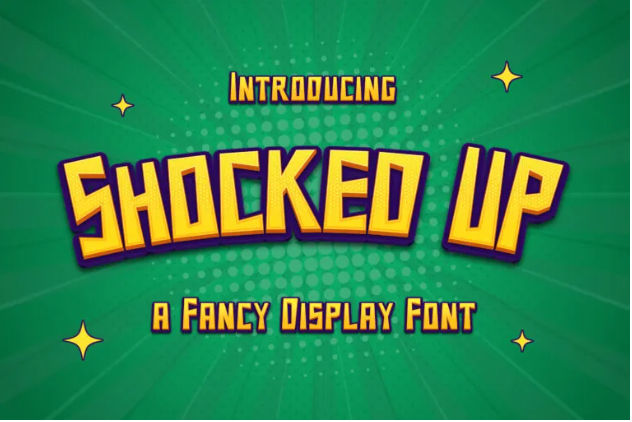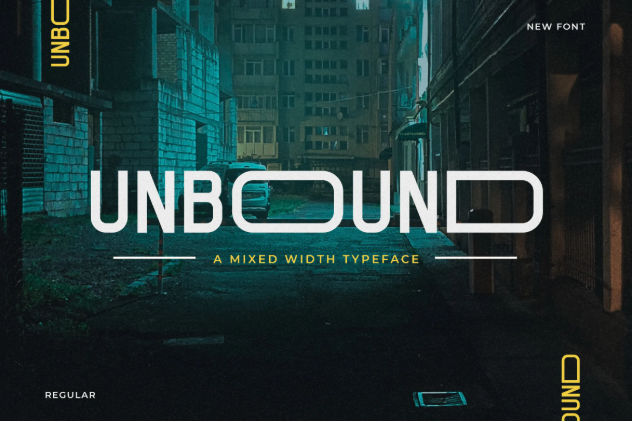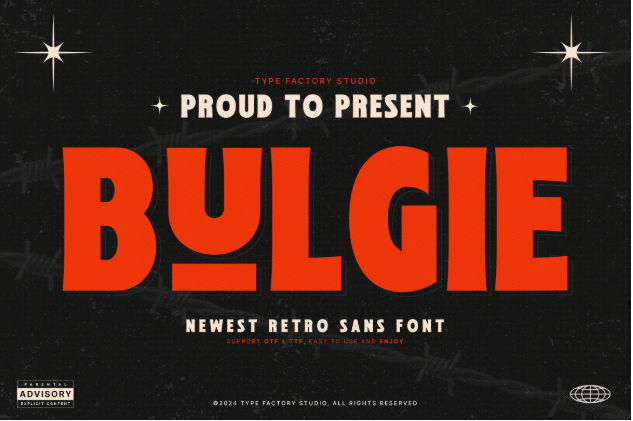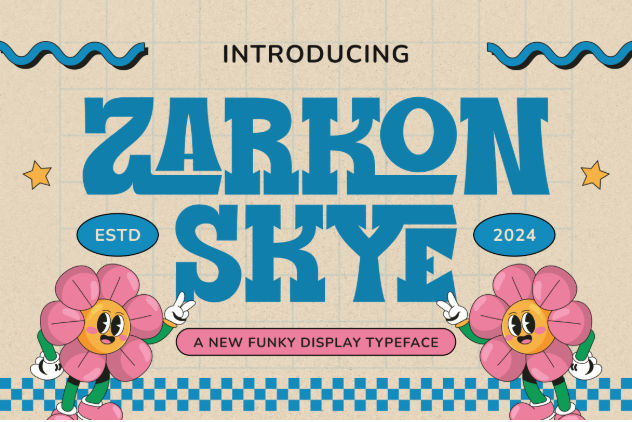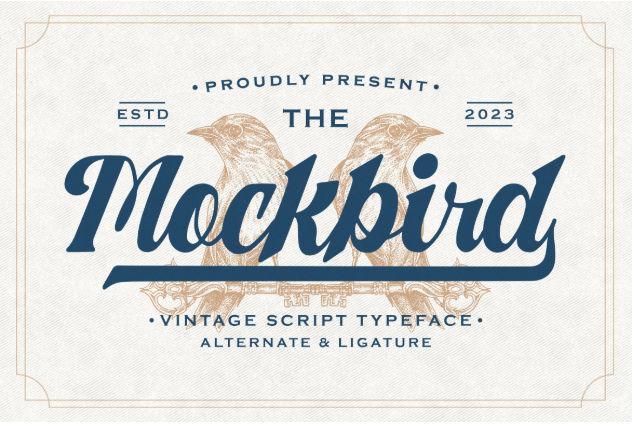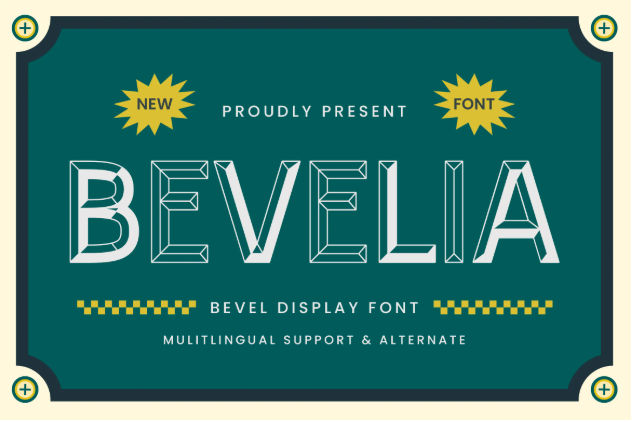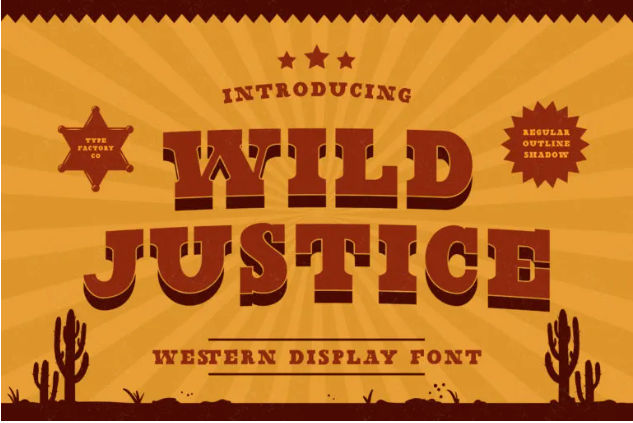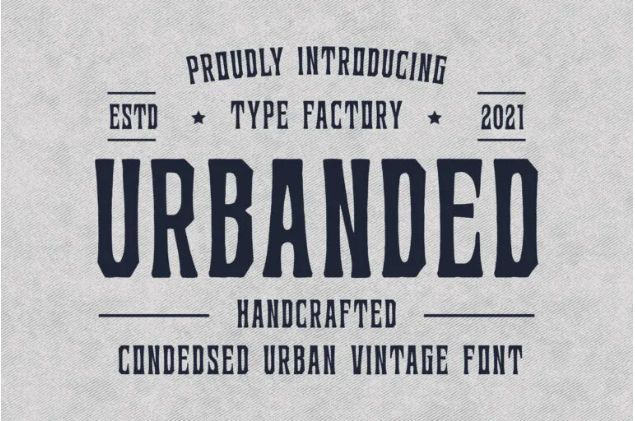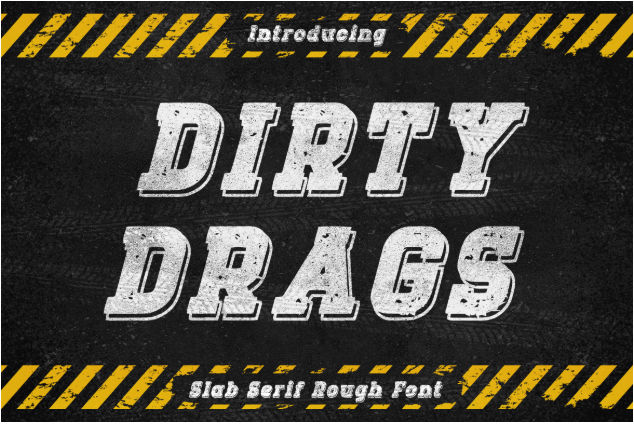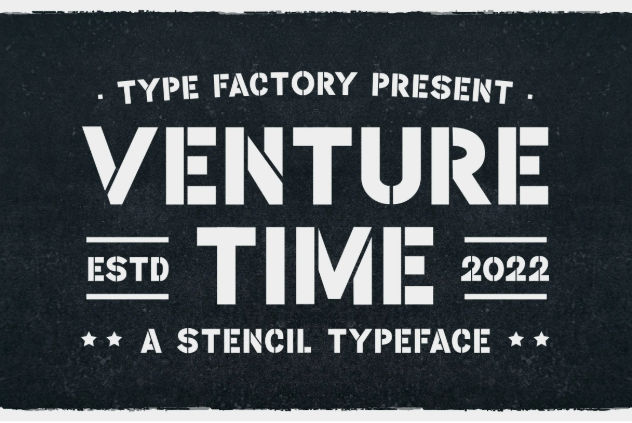
20+ Best Block Lettering Fonts for Watermark Designs in 2025
Block lettering fonts are powerful tools in watermark design, offering visual impact and clarity for brand protection and document security. While some designers stick with the classics, let’s explore new ways to push the boundaries of block lettering fonts for watermark design.
Block Lettering Fonts for Watermark Design in 2025
When designing a watermark, several points must be considered, such as opacity compatibility, scalability, weight balance, character spacing, and geometry. The subtle stubbornness is what makes it a watermark. The font should be recognizable but not distract the document behind it. So, here’s our take on it.
1. Shocked Up
When catering to the criteria, such as the geometric simplicity, character spacing, and most importantly a fun font, Shocked Up is what you’re looking for. This display font has a trapezoidal base with quirky angles inside.
2. Jonks
Making a watermark with a brush display font like Jonks is a bold move. The textured lines of the font can seamlessly blend with the background, teetering the line between a watermark or a new element.
3. Wild Justice
Wild Justice font is a Western-themed font with a clear intention to watermark. It is a family pack and the regular style seems 3D, creating a clear separation from the background elements.
4. Destro
Block lettering fonts for watermark designs typically use capital letters only, but Destro offers lowercase too. Using its stencil style, this font leisurely combines serif style for the uppercase and sans serif for the lowercase.
5. Urbanded
Even in 50% opacity, you want a watermark to stand out, and one way to do it is by using a handcrafted font like Urbanded. Its condensed style and one-of-a-kind typeface make your watermark completely alien from the background.
6. Dirty Drags
A font with a great dynamic with the background, Dirty Drags introduces scrappy looks to your designs. This slab serif font uses rough looks in its bold letters, allowing a little of the background to shine through.
7. Venture Time
One of the cleanest ways to slap a watermark on a document is by using a fun stencil typeface like Venture Time. This font is particularly a cool choice if you feature some numbering in your watermark.
8. Marines
If you’re focusing on the sporty field, Marines is the block lettering font you’re looking for. Its octagonal and bold letters naturally exude strong and competitive vibes. The simple letterforms are timeless, making your watermark trendy for a long time.
9. Golden Rooster
Golde Rooster is a high-contrast font, meaning it has strong lines and clean letterforms. It is a one-of-a-kind font for those who seek creative, modern, and luxurious fonts.
10. Unbound
Dipping into a weird territory, Unbound emerges. The font has a mixed-width typeface, creating a dystopian vibe. A watermark made with Unbound is perfect to reflect today’s era of AI imagery.
11. Championer
Championer fills another sporty font in our lineup. This font mostly uses a bold octagonal shape featuring the legendary ink trap cuts. The cuts here function to create a sense of quick movements.
12. Bulgie
Nowadays, using fonts like Bulgie is trendy. The font has both a vintage and modern look with cute and unique charm. This font has clean strokes, is vibrant, and looks friendly.
13. Rooslack
If you aim for freeform block lettering fonts for watermark designs, Rooslack represents you best. The paper-cut typeface creates a unique, cartoonish, and fun shape of the letters.
14. King Mind
When you’re cutting up letters, usually the center hole is the hard part, and that’s exactly what King Mind looks like. A blocky paper-cut font style with minimal holes playfully creates the letter’s silhouette.
15. Balcony
Balcony is an artsy, bold font with loops in the middle of it. This display font style is rare, making your watermark really prominent even in 50% opacity.
16. Northgen
Utilizing the timeless classics, Northgen vintage font exceeds your block lettering needs. This sans serif font is bold, bright, and in your face, letting everyone know that it’s a watermark.
17. Zarkonskye
A funky interpretation of the serif style, the Zarkonskye display font deserves a spotlight on your watermark font catalogue. The font is vibrant, bold, and fun with an unprecedented amount of ligature selection.